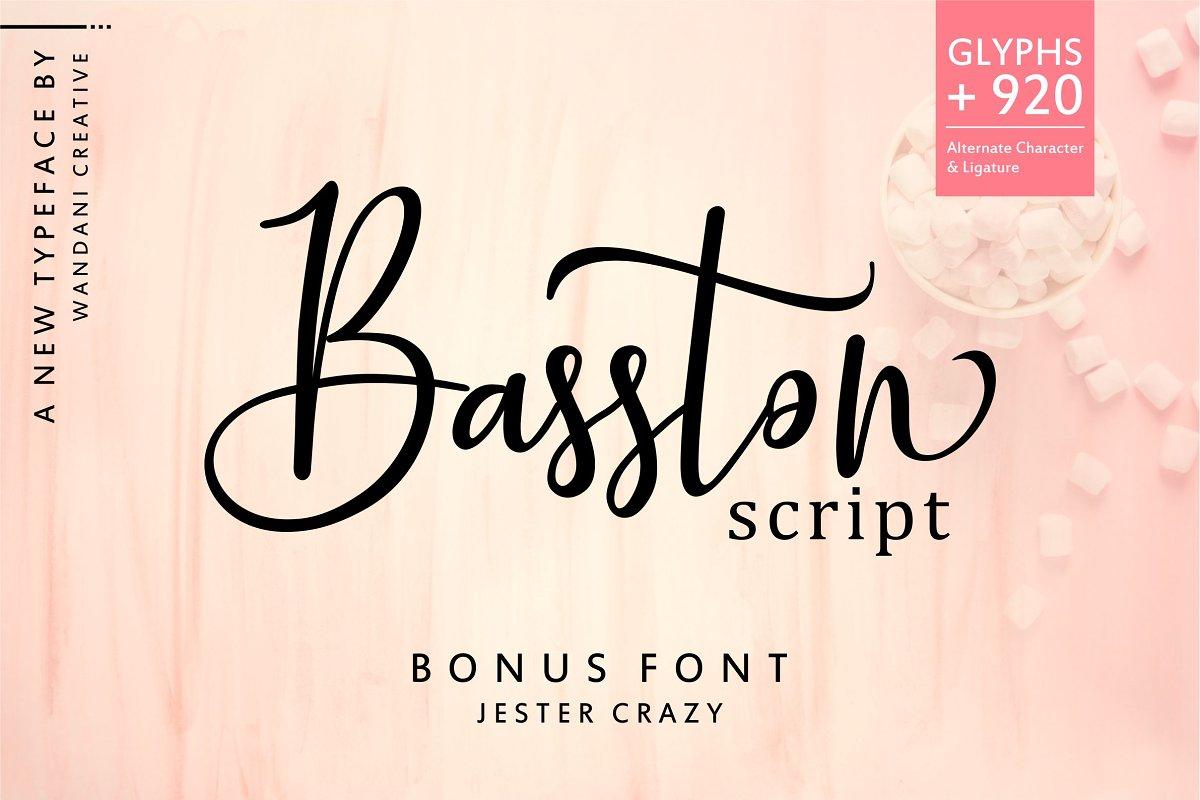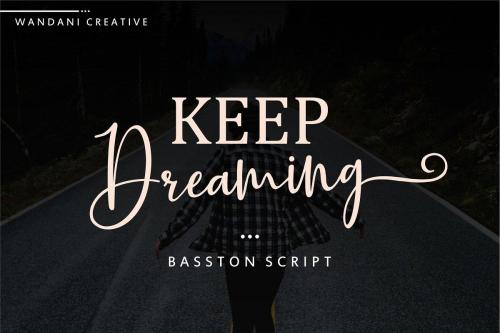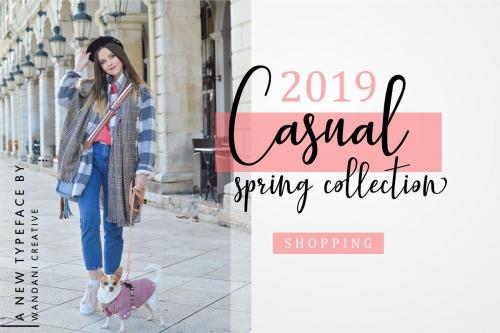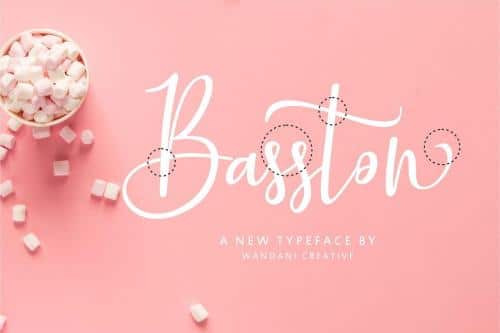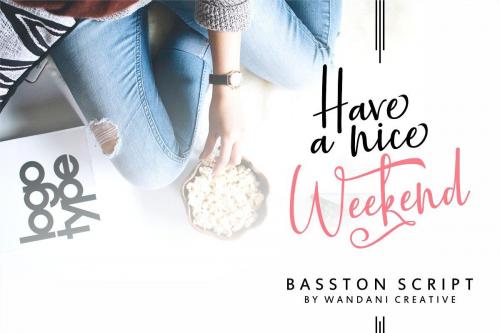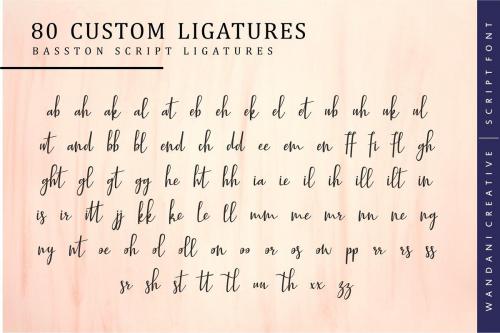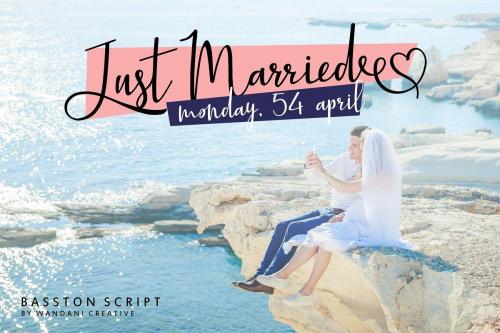
“Basston Script” is a beautiful script font, both elegant and charming in look and design. This font comes with over 920 alternate characters and ligatures, so you can create the most stellar looking calligraphy designs simply and easily. It is perfect for branding, packaging design,etc
“Basston Script” includes full set of lovely uppercase and lowercase letters, multilingual symbols, numerals, punctuation and ligatures. All lowercase letters include beautiful and unique (each letter has own “unpatterned” ending) beginning and ending swashes. Also, includes following multilingual symbols.
- Designer: wandani